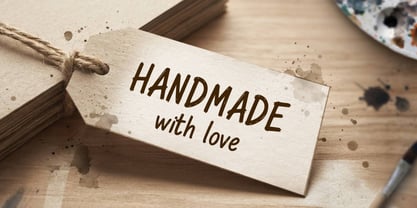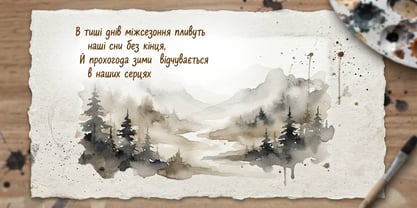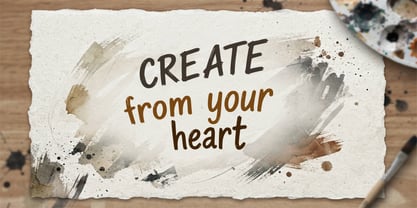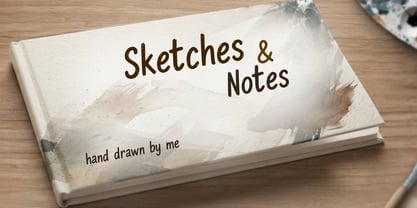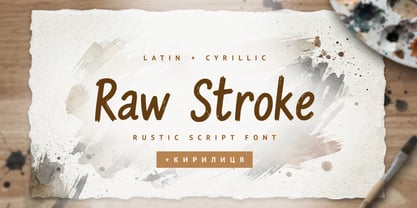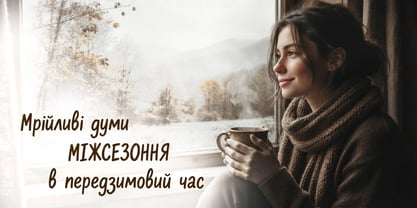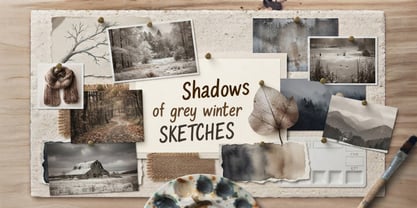
Raw Stroke Cyrillic
by Ira Dvilyuk
The Raw Stroke Cyrillic Font Family was designed by Iryna Dviliuk and published by Ira Dvilyuk. Raw Stroke Cyrillic contains 1 styles. More about this family
Raw Stroke — Handcrafted Dry Brush Font
Unleash raw emotion and authentic texture with Raw Stroke, a striking handcrafted font designed to bring bold, untamed energy to your creative projects. Crafted with sharp, rough dry-brush strokes, this typeface captures the raw imperfections and organic feel of real ink on paper.
Whether you’re designing high-end apparel, edgy branding, dynamic music posters, or striking social media graphics, Raw Stroke makes a fearless statement that demands attention.
Add a touch of rebellious artistry to your design toolkit today with Raw Stroke.